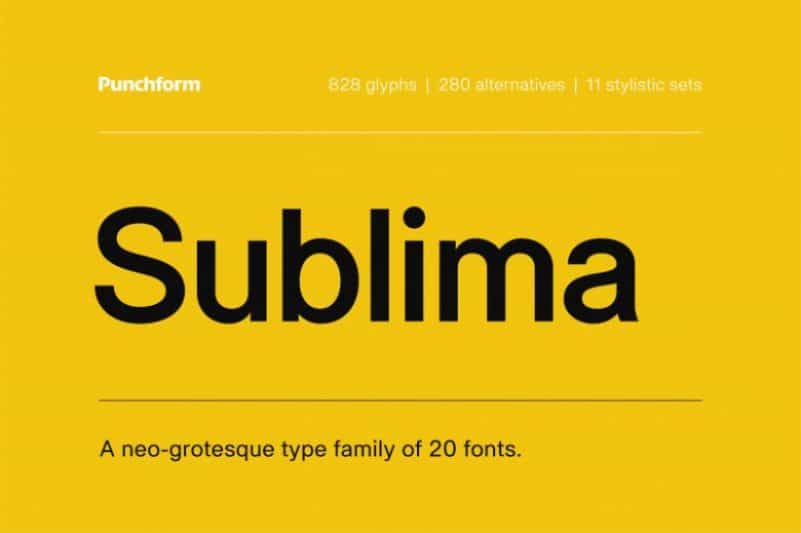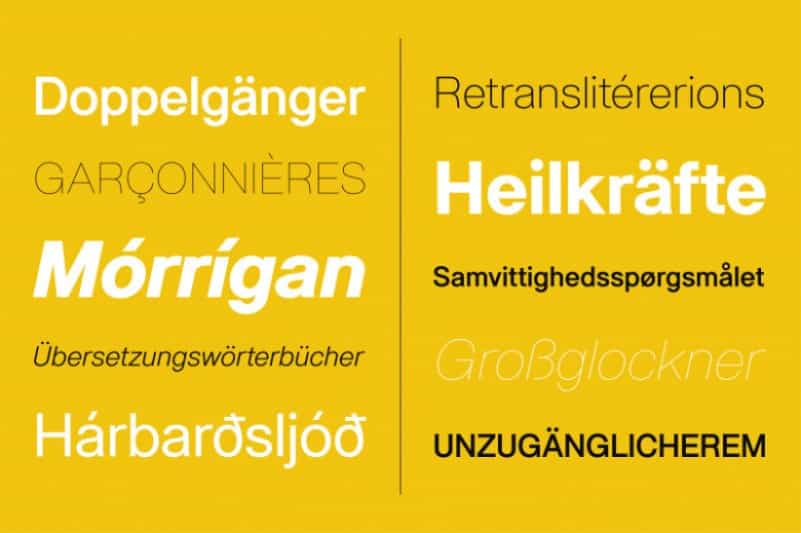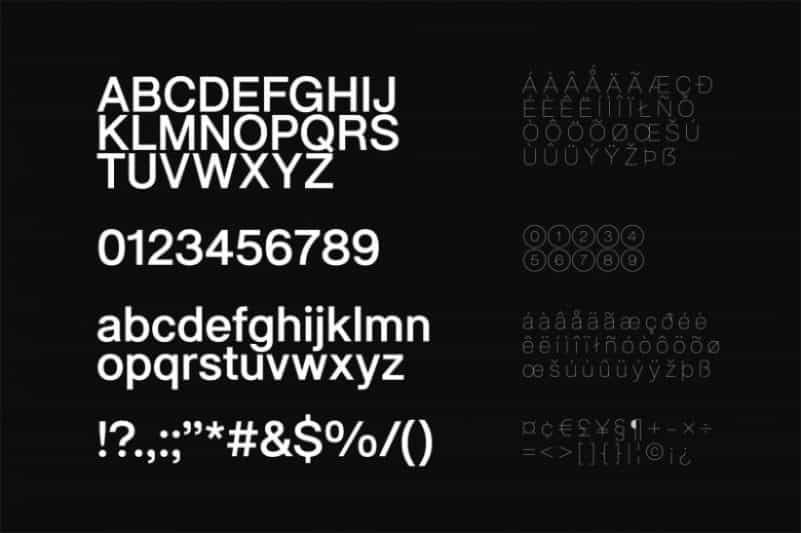
Sublima is a modern Neo-grotesque Sans-Serif font designed by Mihai Sorin and released through Punch for 2021. It includes 20 weights with 10 uprights and 10 italics ranging from thin to Black; as well as Light Weights and Extrabold provided free of charge so they may be used freely for both commercial and personal projects. Graphic artists can utilize Sublima to design advanced typographic layouts thanks to 280 unique glyphs and 11 styles available within it.